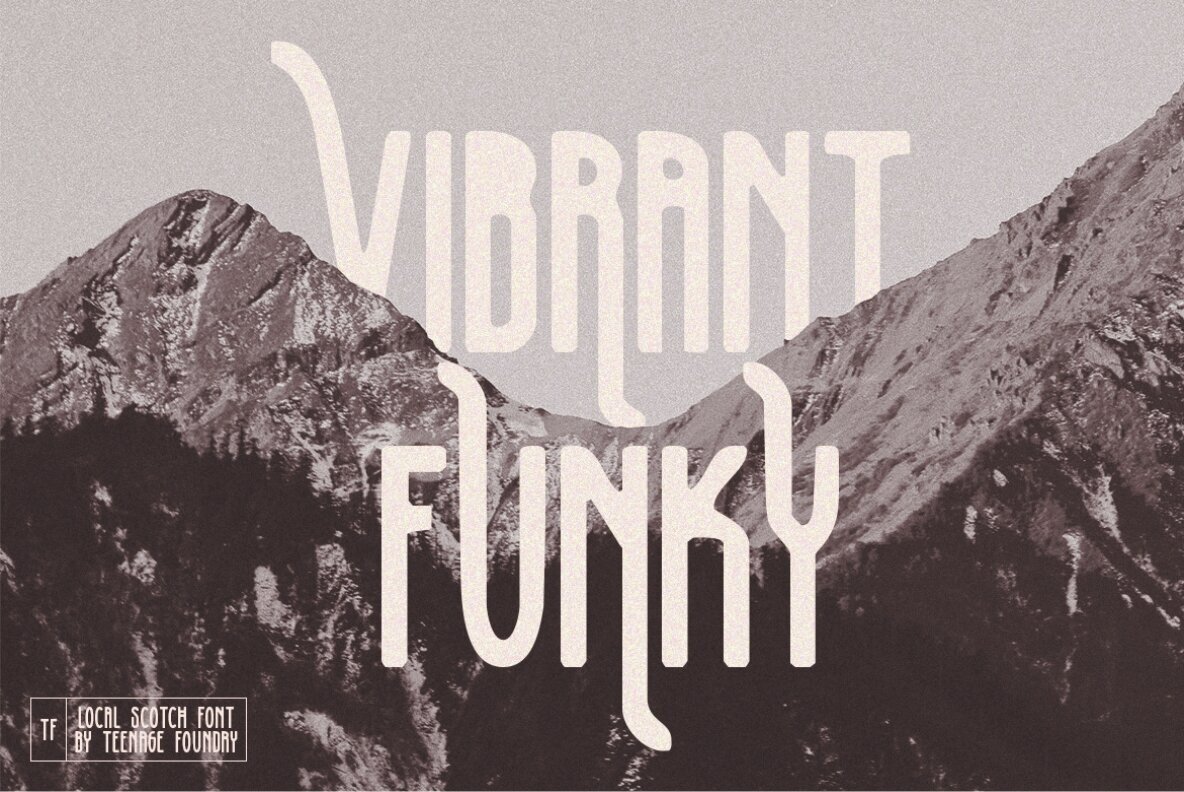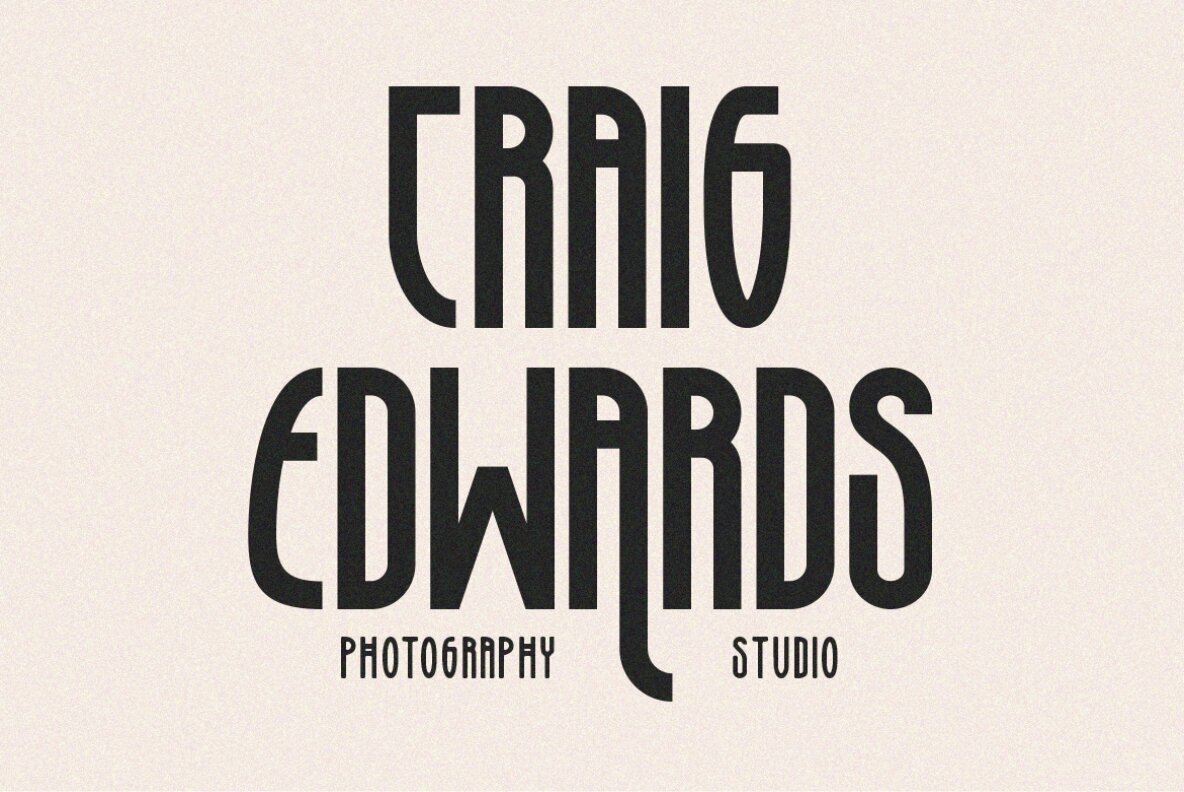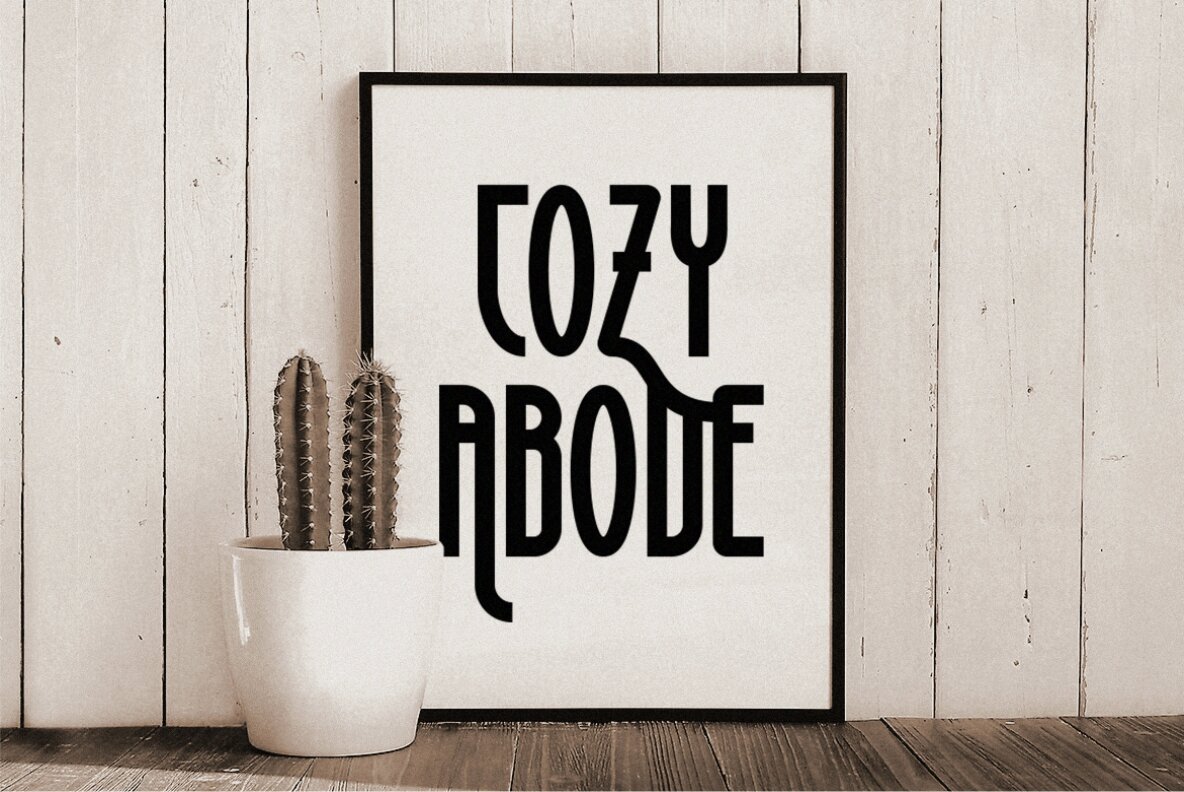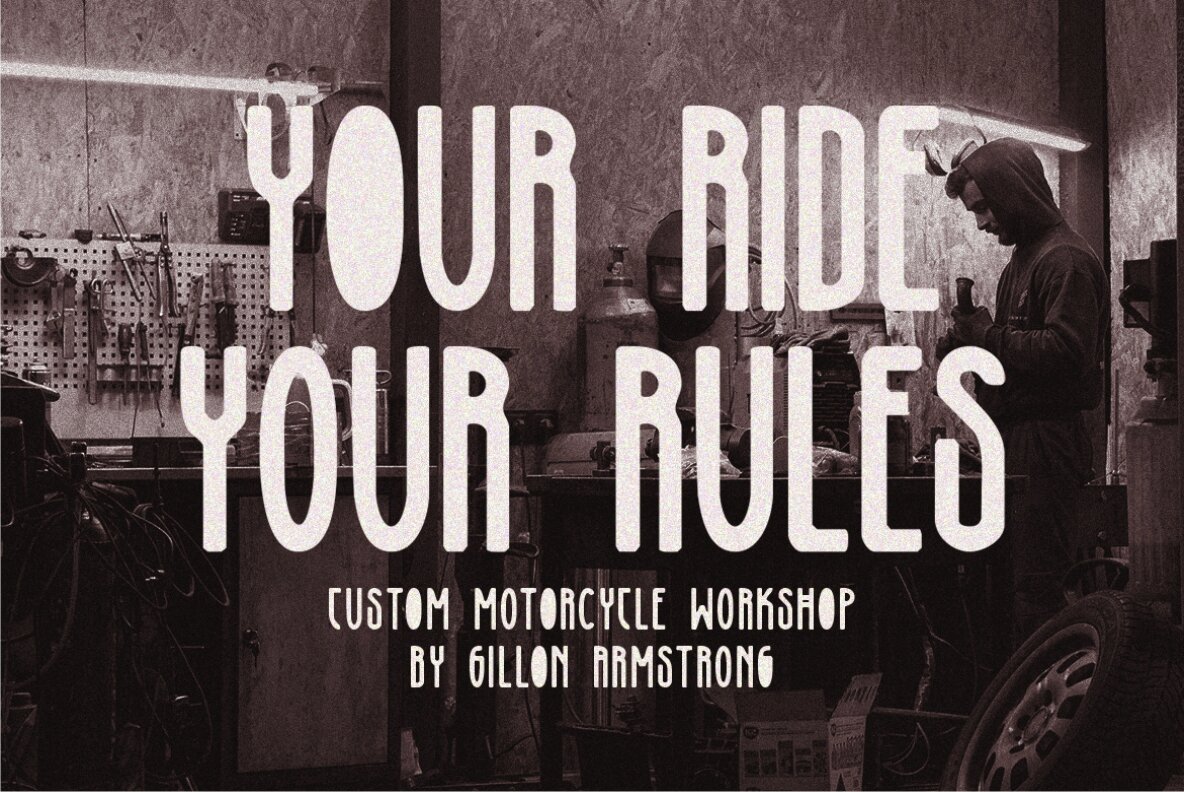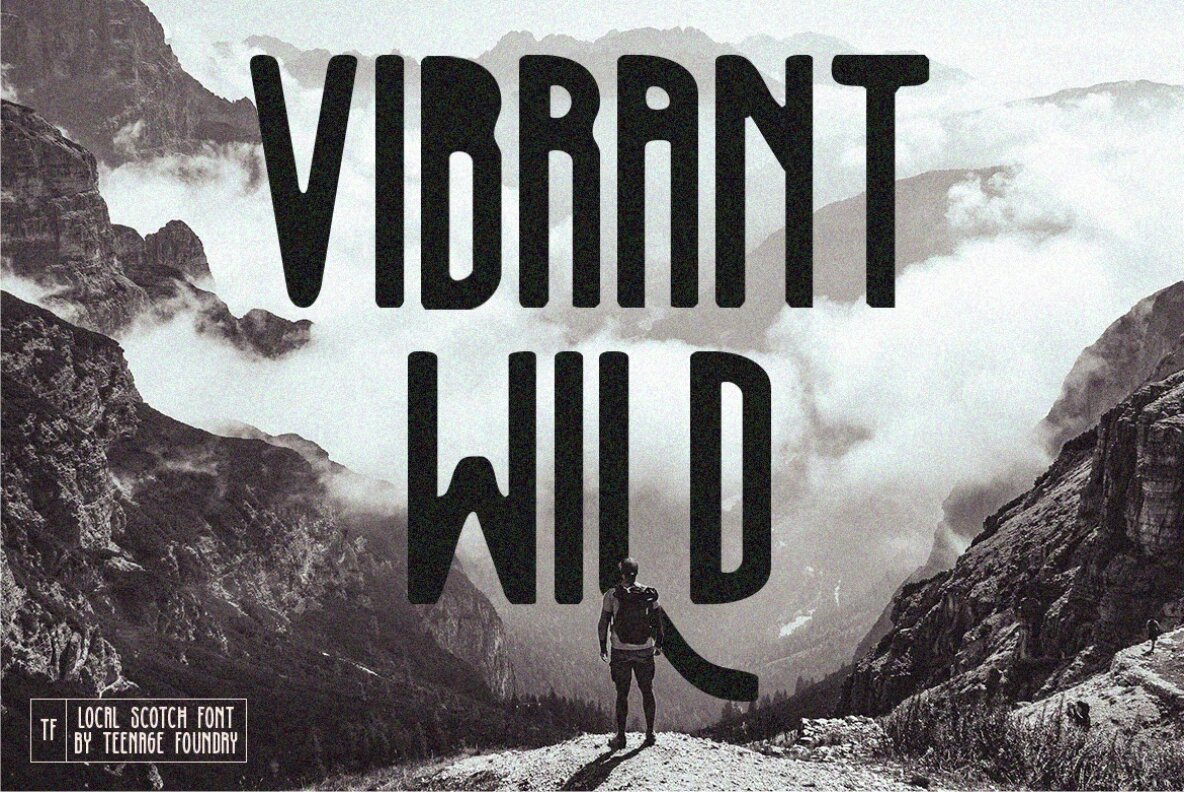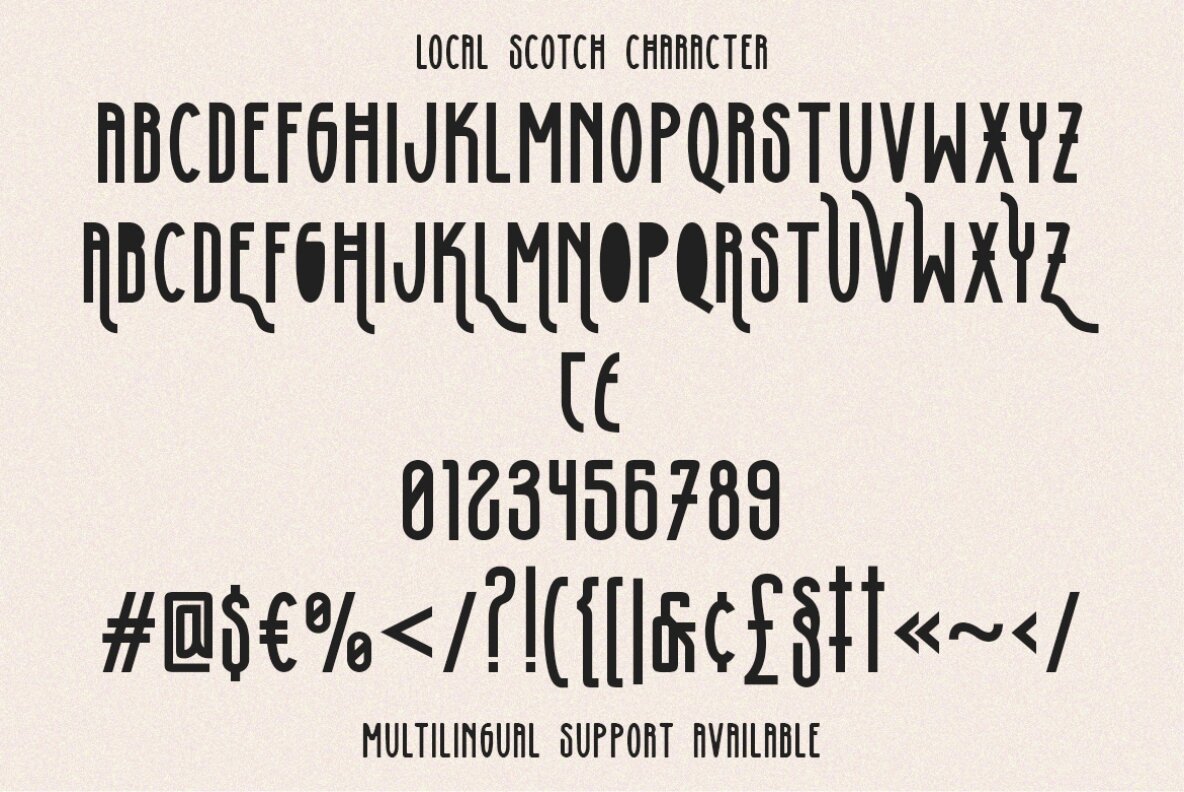
TF Local Scotch Font
Local Scotch - Display Font - a tall and bold single-line design that is sure to make a bold statement in your projects! Our font features a sleek and modern look, with tall letterforms that exude confidence and strength. The regular version of our font is perfect for creating designs that demand attention. The tall and bold letterforms ensure that your message is clear and impactful. But that's not all - we've also included a unique twist with our blur version font. The blur version adds a subtle softness and texture to your text, giving it a more creative and dynamic appearance. This alternative font version is perfect for designs that require a touch of visual interest or a slightly unconventional look.